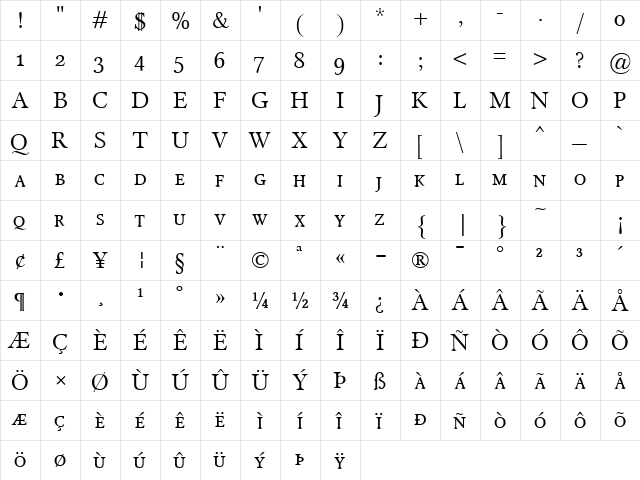
Miramar SmallCaps Regular
Design Context for Miramar SmallCaps Typeface
Miramar SmallCaps takes a measured approach to typography — its balanced proportions and neutral character make it a reliable workhorse for both digital and print work.